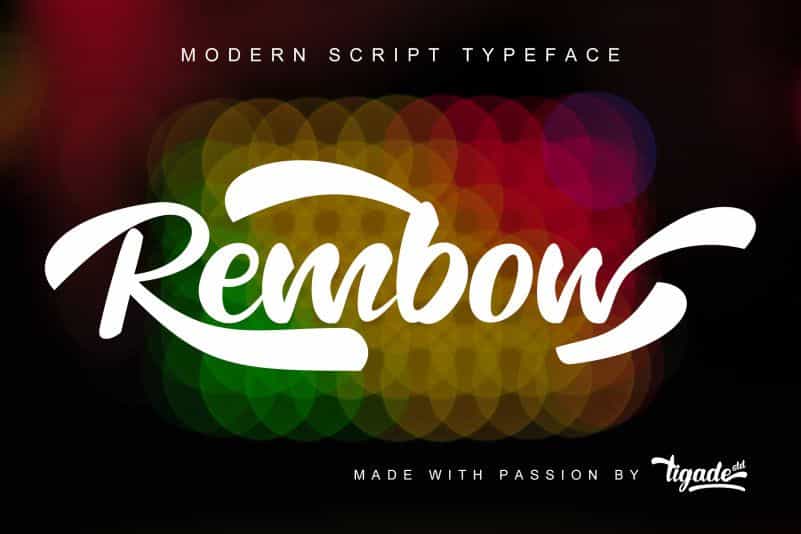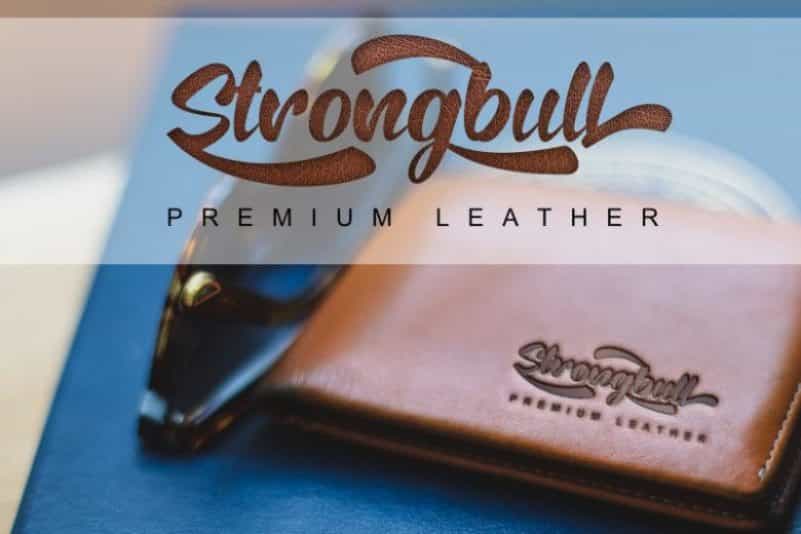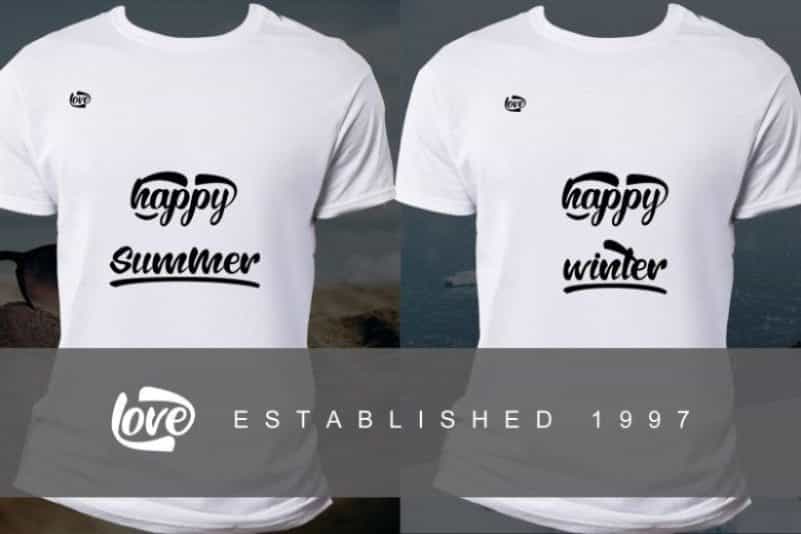
The Rembow Font is a universal, multi-purpose font that fits both vintage and modern designs. It will suit perfectly for any project you are working on, with its help you can design wonderful logos, inscriptions, templates, signs and highlight the text.